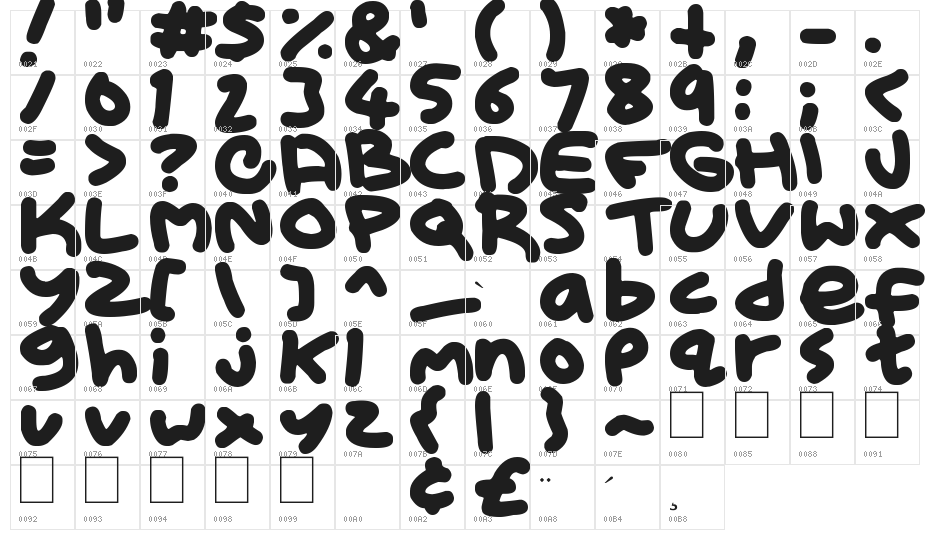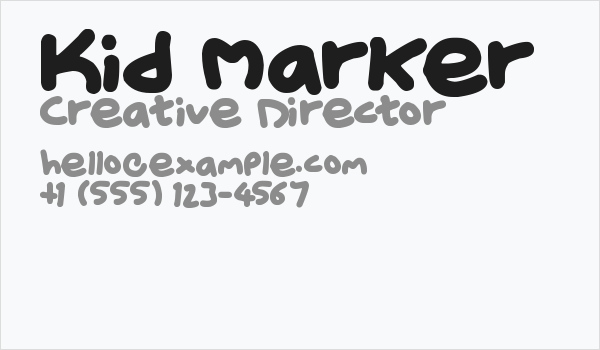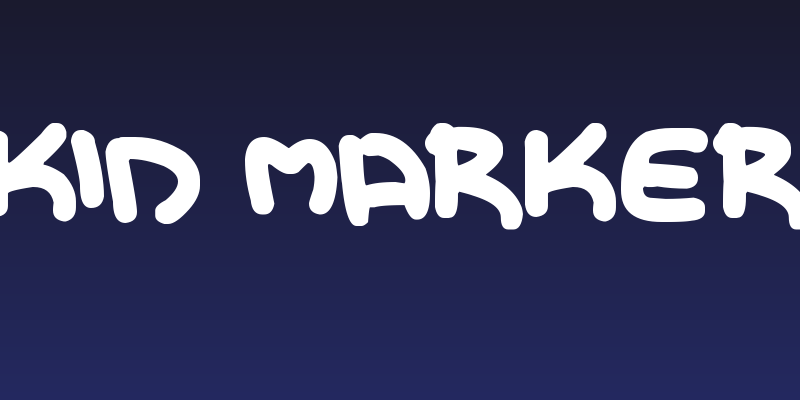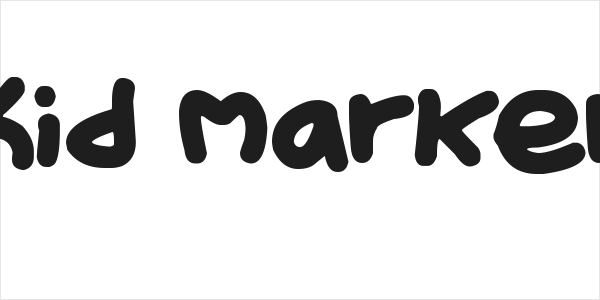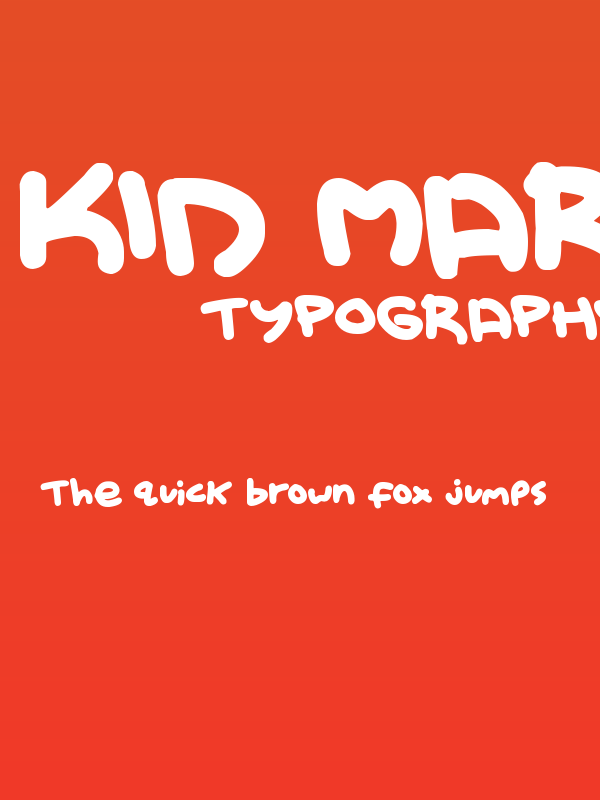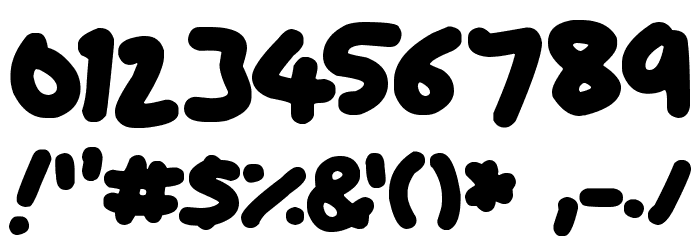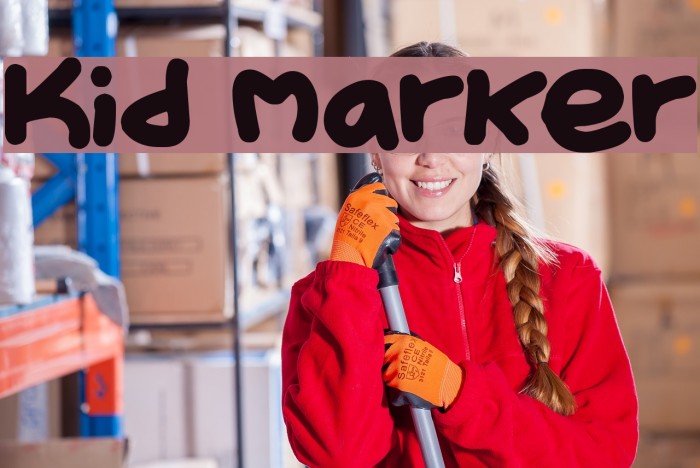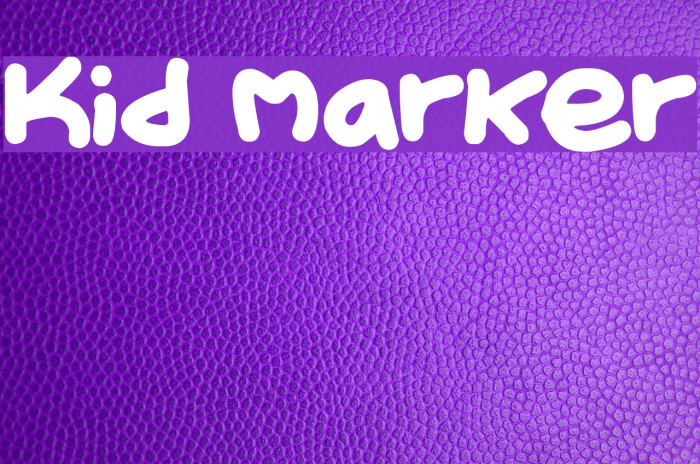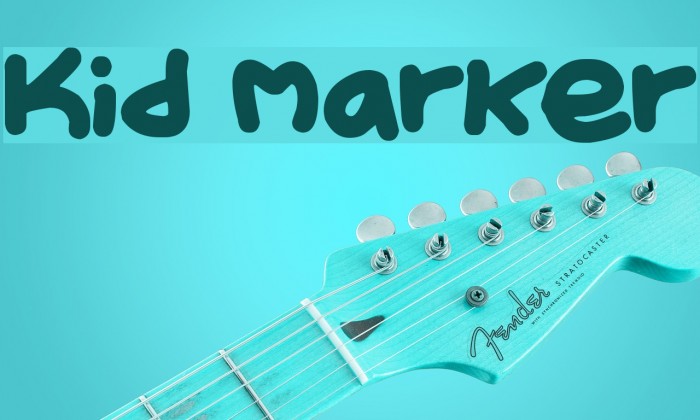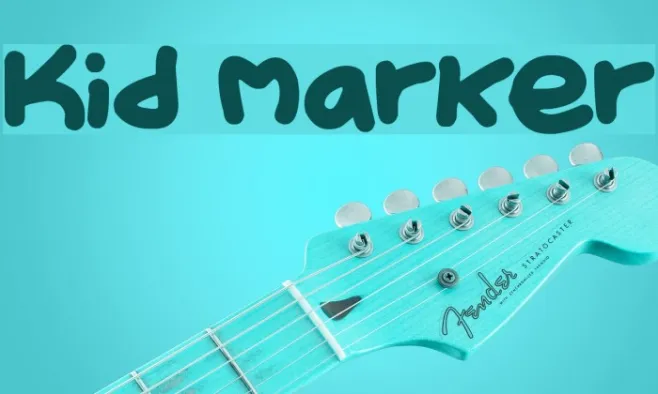
This playful and bold font captures the essence of a child's handwriting with its thick, rounded strokes and informal style. Each character is uniquely crafted to appear as though it was drawn with a marker, giving it a lively and energetic feel. The letters are slightly irregular, adding to the charm and authenticity of a handwritten look. The font maintains a consistent weight throughout, ensuring readability while preserving its whimsical nature. Its friendly and approachable design makes it ideal for projects aimed at children or those seeking a casual and fun aesthetic.
| Use Case | Headlines, Logos, Children's materials |
| Proposed Projects | Ideal for children's books, educational materials, playful branding, and casual invitations. |